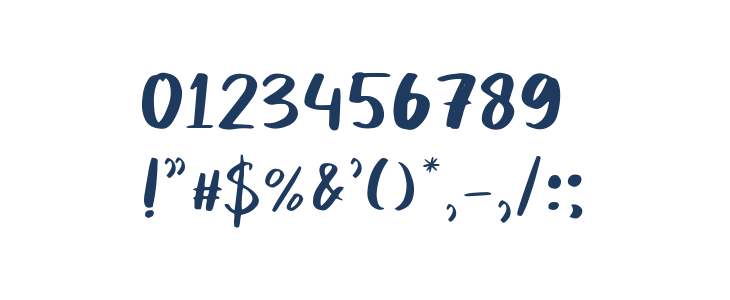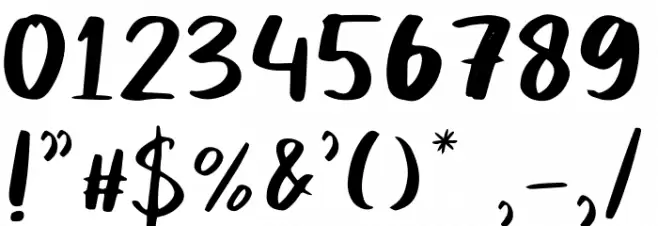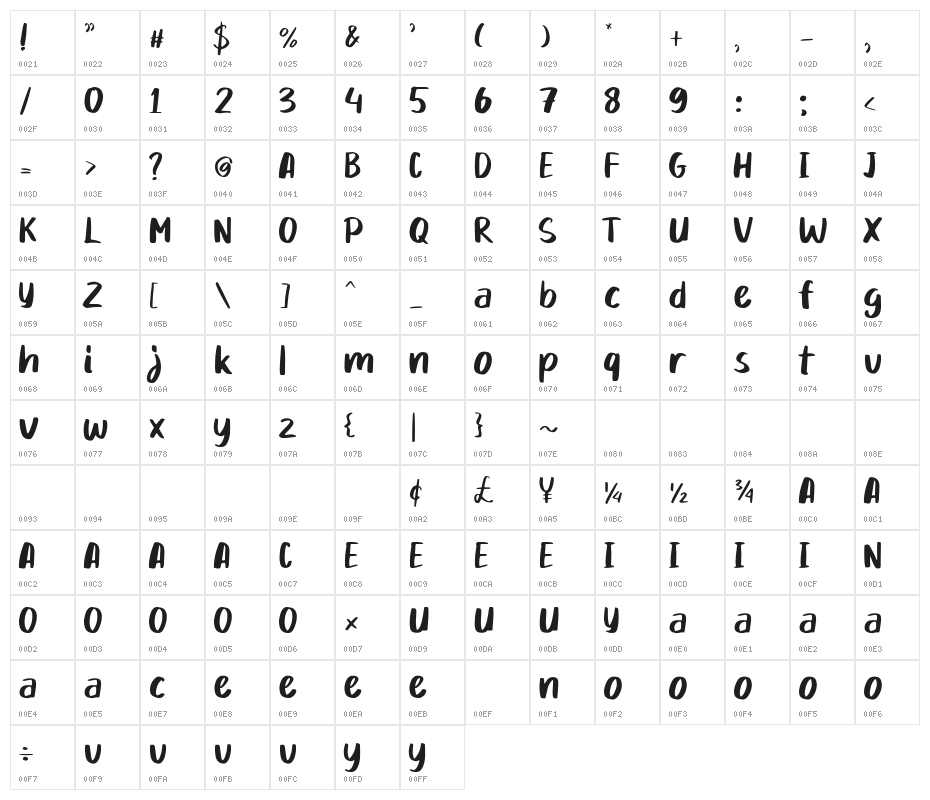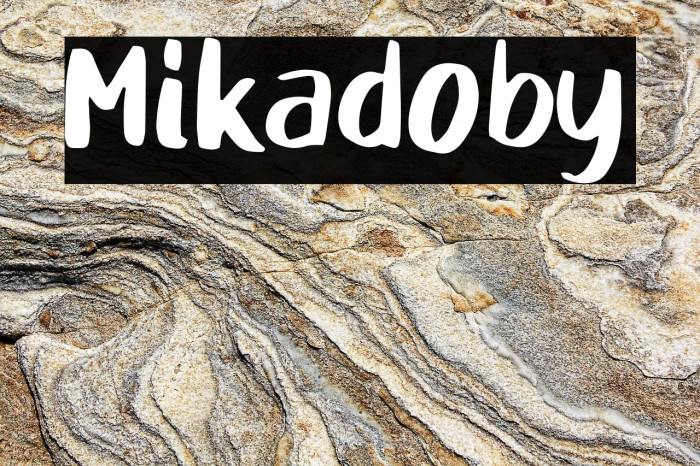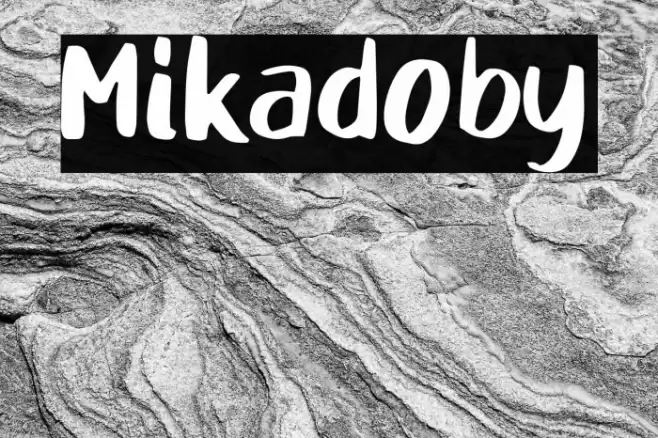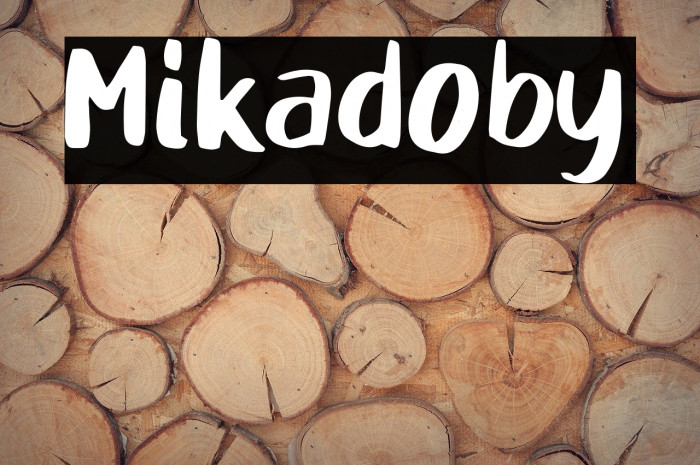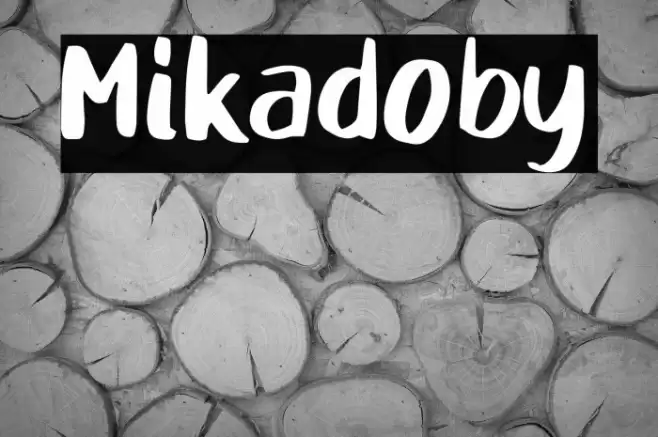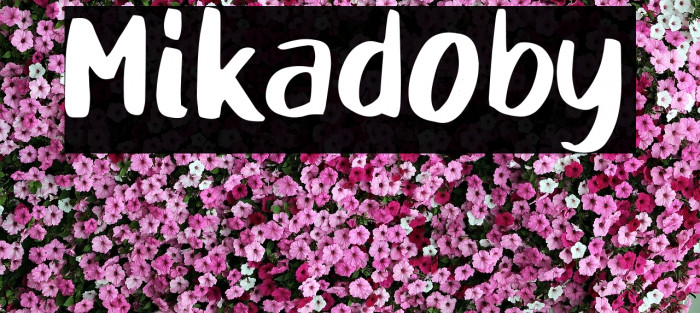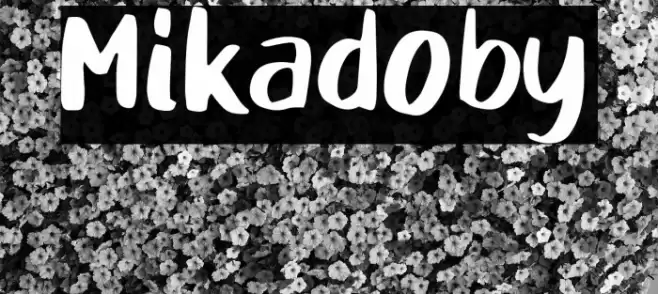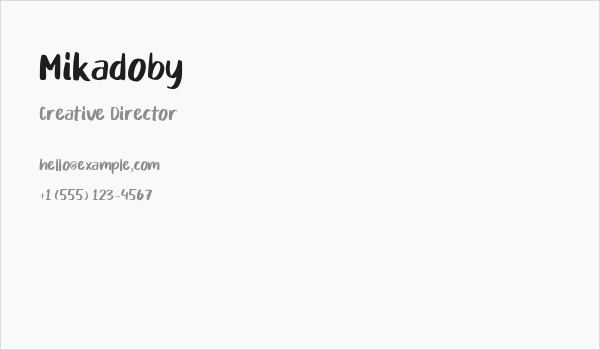
Mikadoby Font
Mikadoby Description
This font features a bold and playful handwritten style, characterized by its thick strokes and slightly irregular shapes that give it a lively and dynamic appearance. The uppercase letters are robust and prominent, while the lowercase letters maintain a consistent flow, enhancing readability. The numerals are well-proportioned, matching the overall aesthetic of the alphabet. Special characters are creatively designed, adding to the font's expressive nature. The overall design is informal yet impactful, making it suitable for projects that require a personal touch.
| Overall Style | Playful, Informal |
| Proposed Projects | Ideal for greeting cards, playful branding, children's books, and social media graphics. |